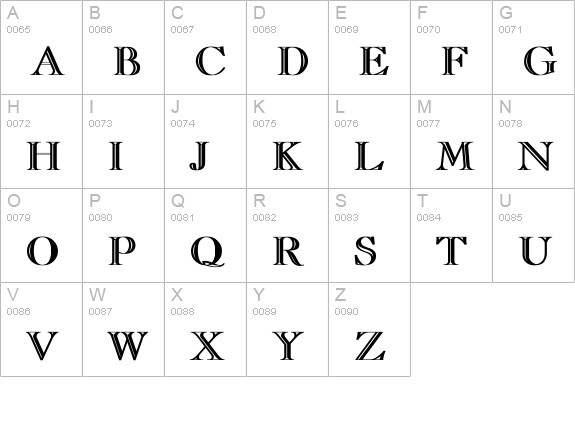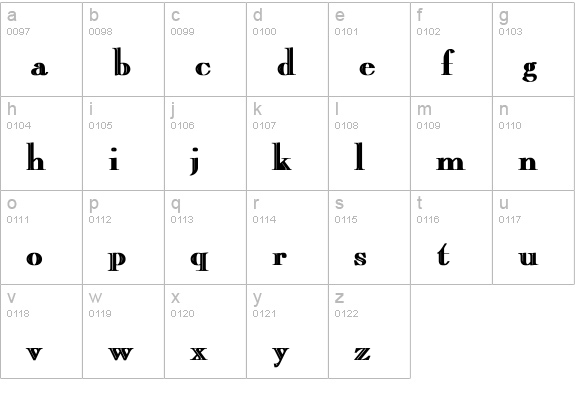
CaslonOpenFace Bold Font Details
CaslonOpenFace Bold is a strong, high-contrast variant in the CaslonOpenFace typeface family \xE2\x80\x94 well suited to headlines, attention-grabbing titles, and strong calls-to-action.
CaslonOpenFace Bold font is a timeless and elegant typeface that exudes sophistication and professionalism. With its bold and distinctive letterforms, this font is perfect for making a bold statement in your design projects. The strong lines and classic serifs of CaslonOpenFace Bold make it versatile and suitable for a wide range of applications, from editorial design to branding and advertising. What sets CaslonOpenFace Bold apart is its unique blend of traditional and modern elements, giving it a sense of both history and contemporary relevance. This font is ideal for making headlines stand out, creating eye-catching logos, or adding a touch of elegance to any design. Best of all, CaslonOpenFace Bold font is available for free download at FontsMarket.com, making it easily accessible for designers looking to add a touch of sophistication to their projects. Whether you're working on a print publication, website design, or any other creative endeavor, CaslonOpenFace Bold is a versatile and stylish choice that will elevate your work to the next level.